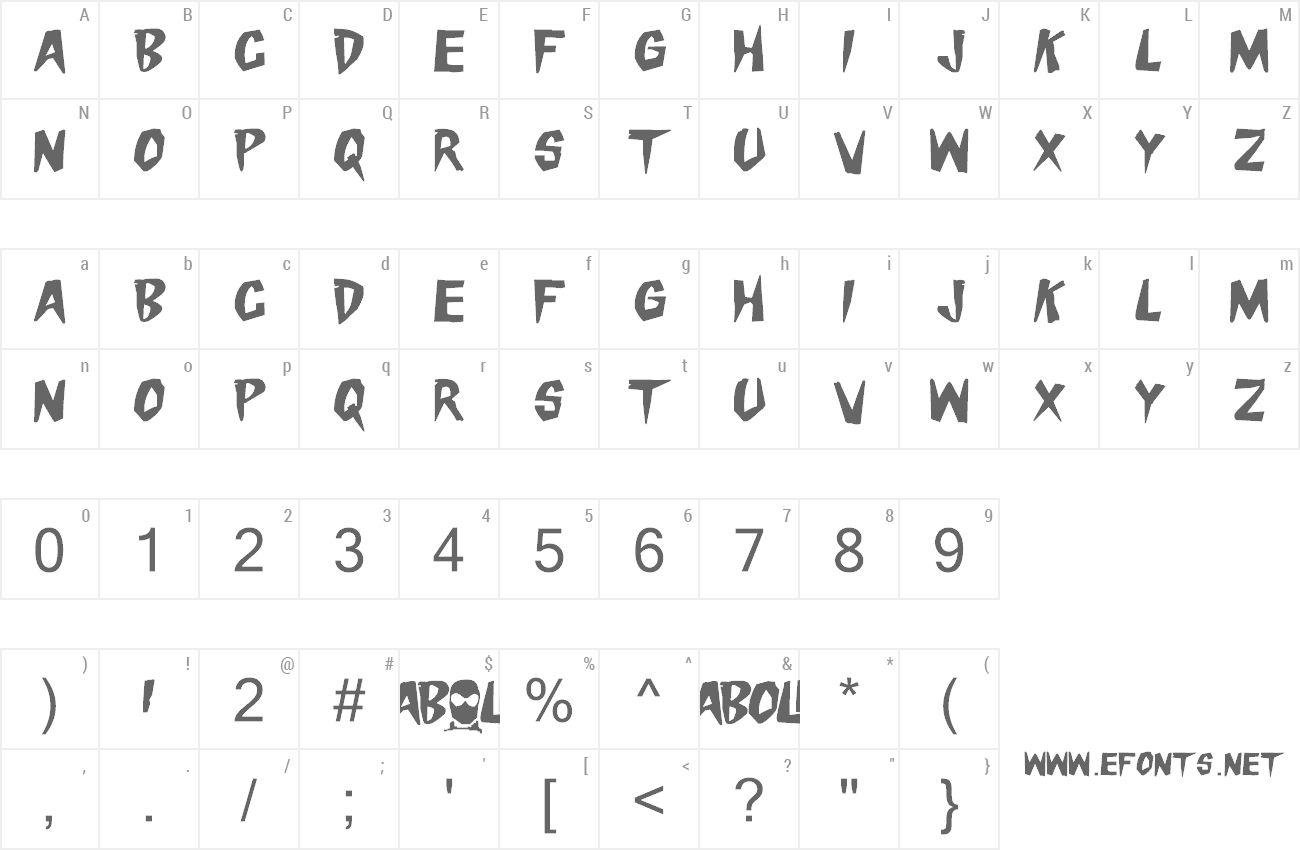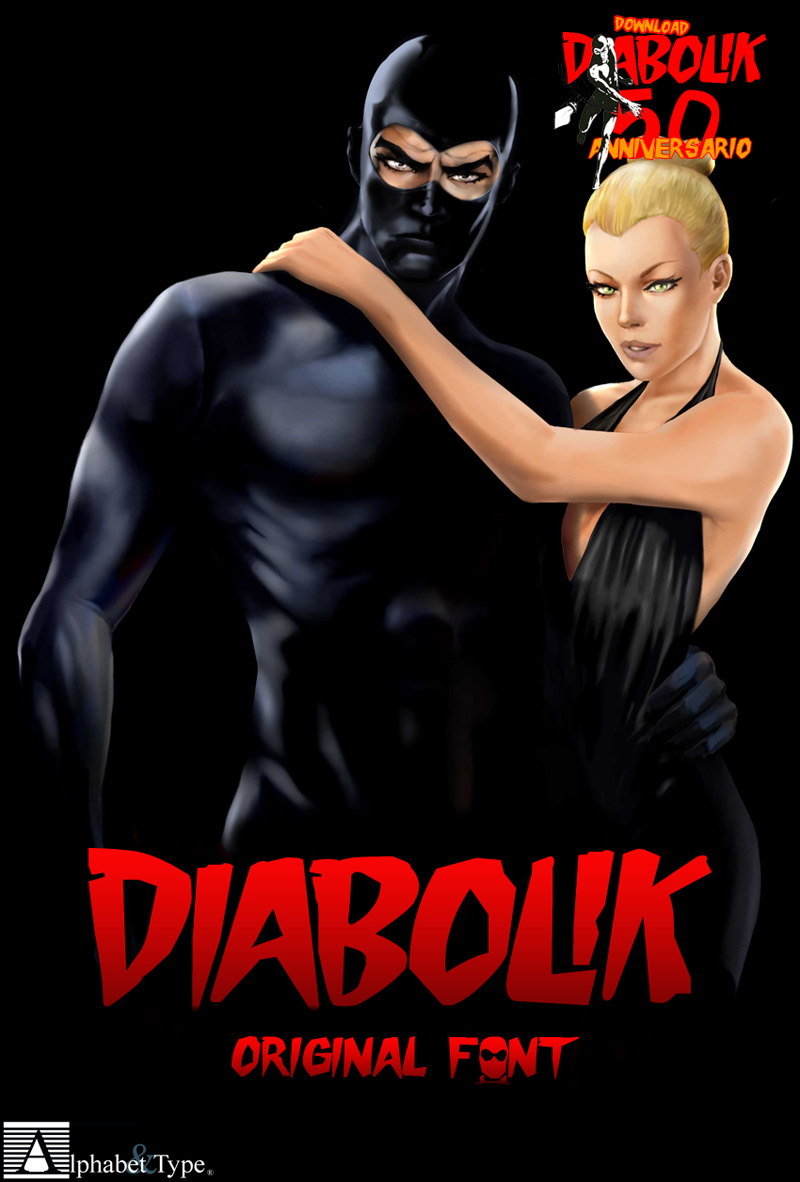
Preview and download Danger Diabolik Font. Created by Alphabet & Type in Fancy Comic styles with 100% Free license.
| DANGER DIABOLIK font: directly from the Best movie by MARIO BAVA, with JOHN PHILLIP LAW, the original font for all lovers. |